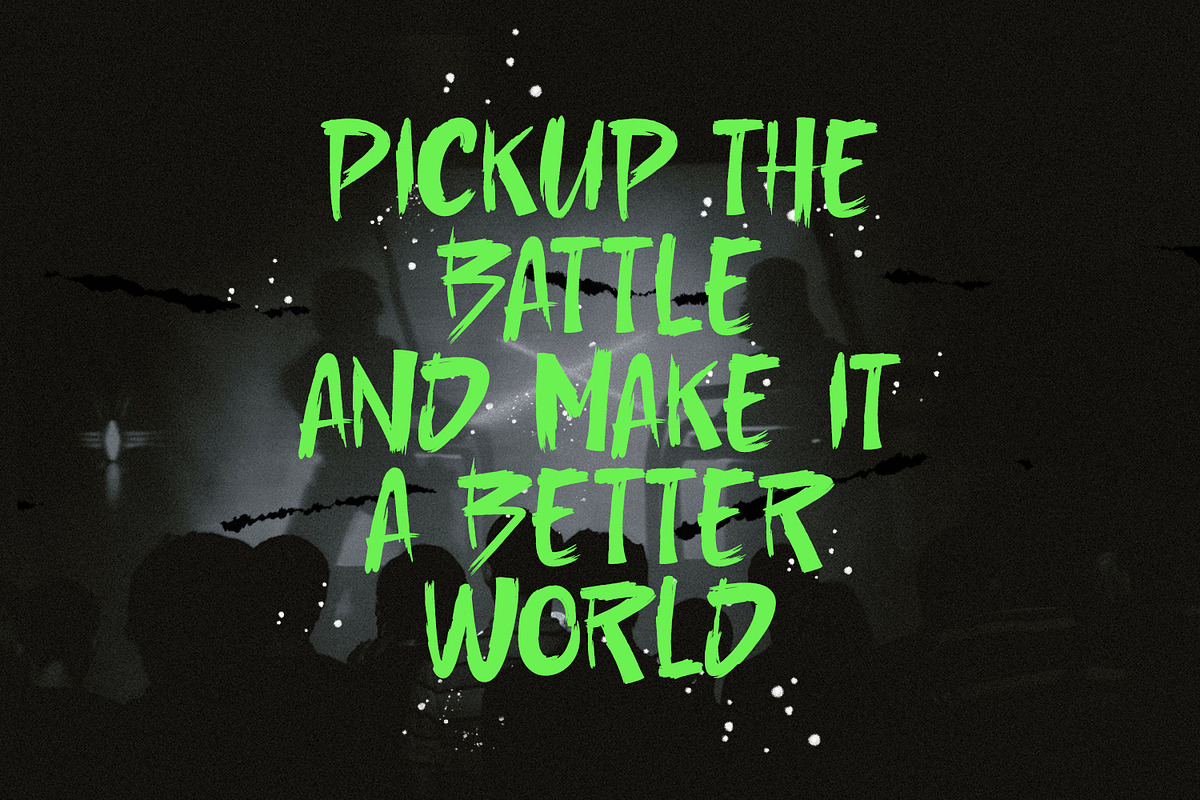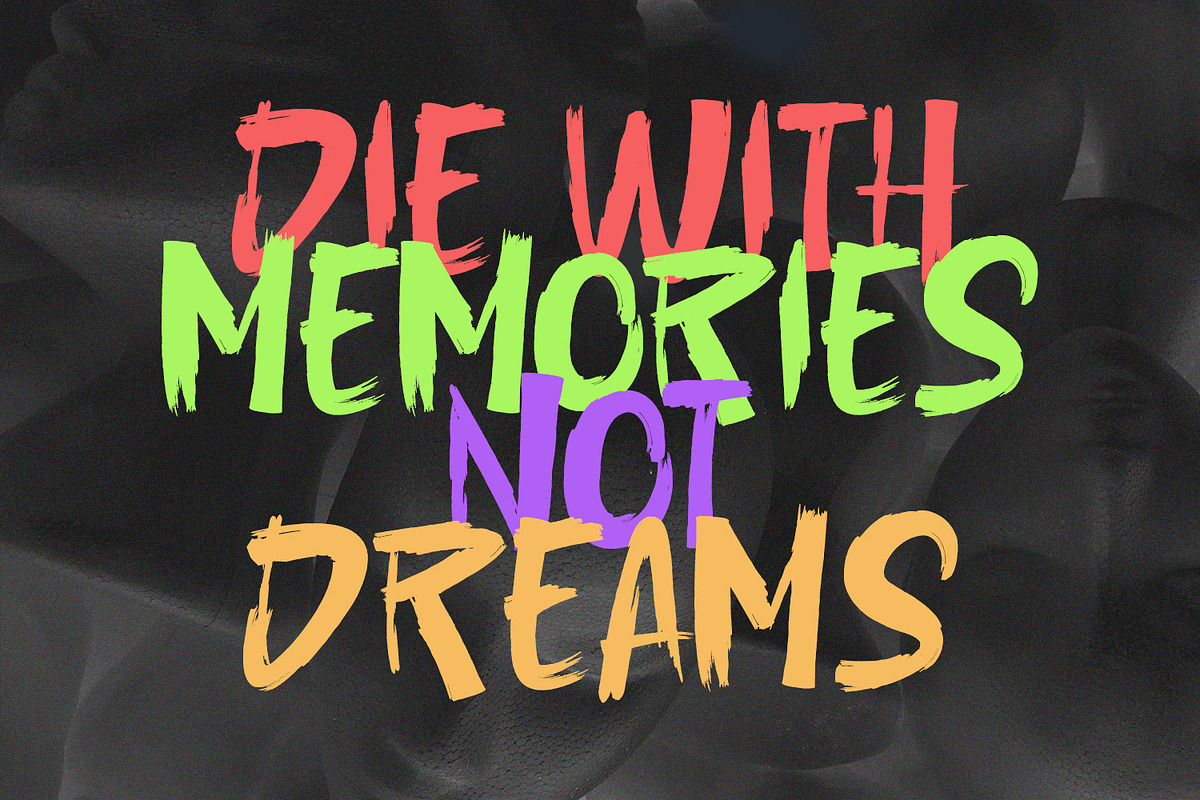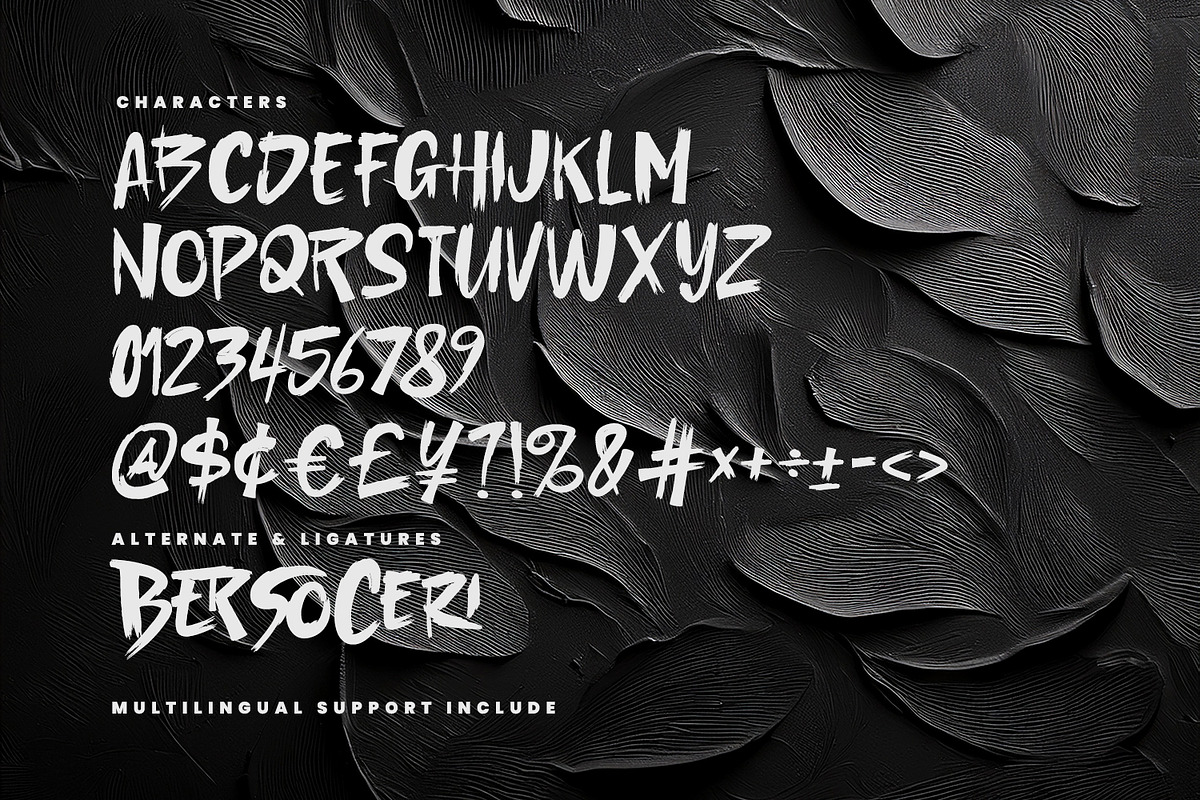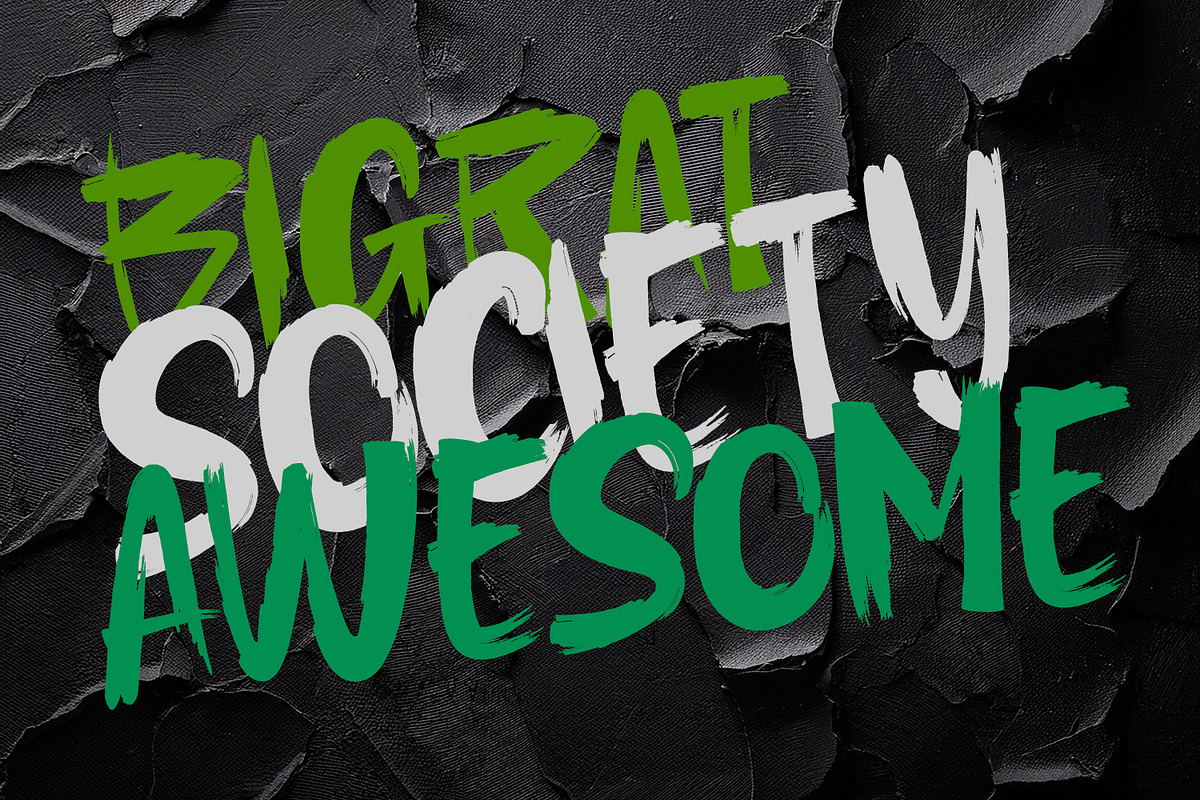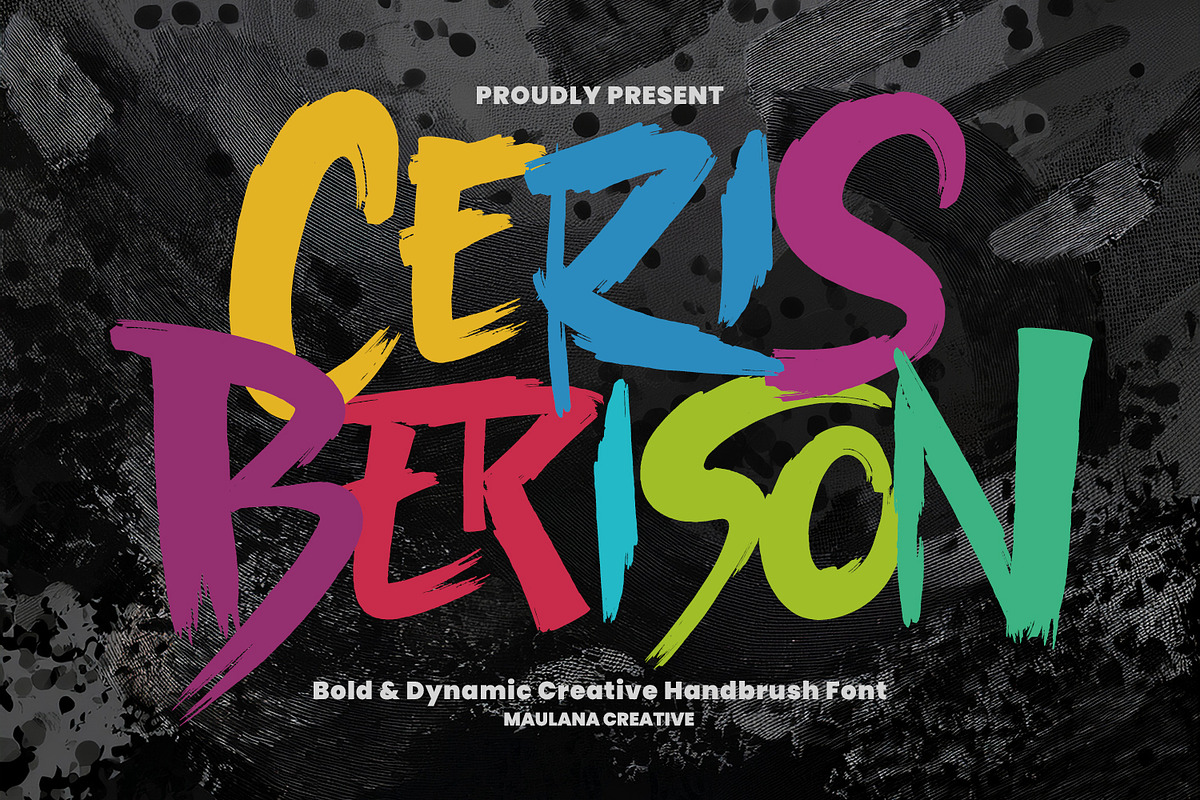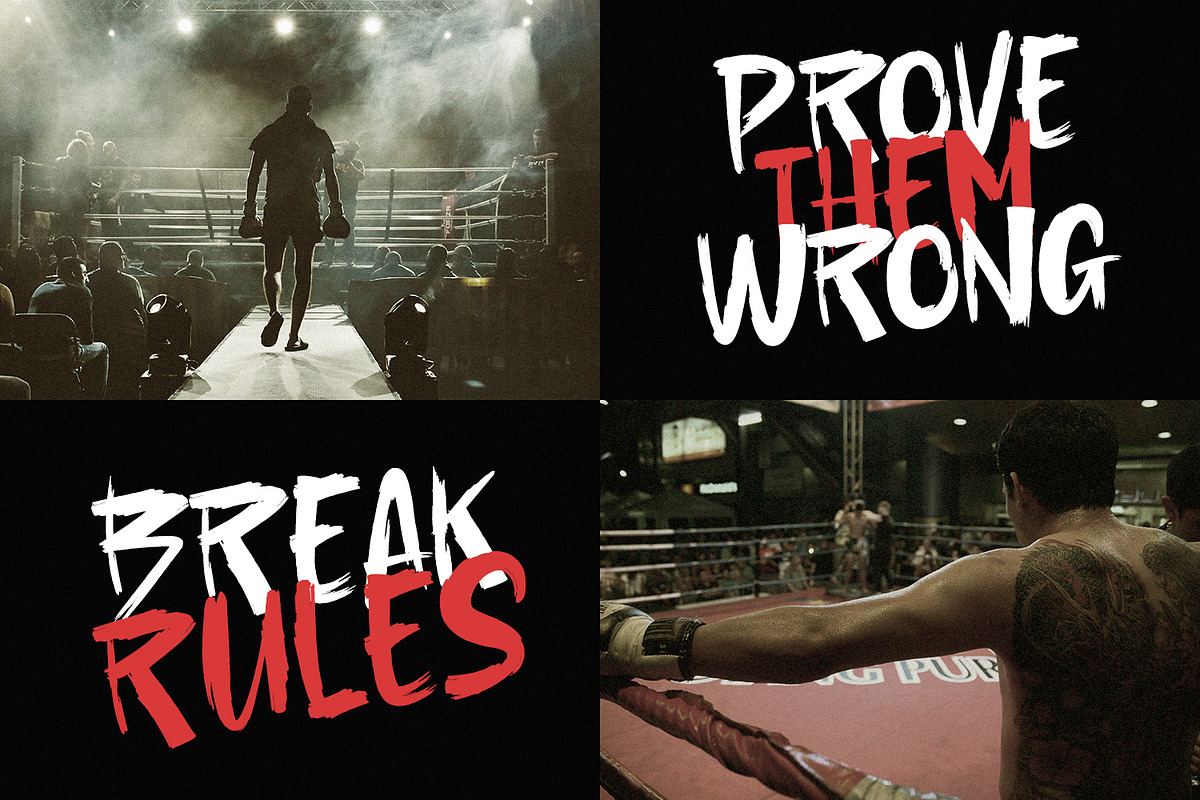
Ceris Berison Bold Dynamic Creative
Ceris Berison is a fiercely bold and dynamic handbrush font designed to make an instant, unforgettable impact. Crafted with a confident, raw brush stroke, this typeface embodies energy, movement, and an unapologetic attitude. It’s perfect for designers who need a font that shouts, not whispers.
Ideal For:
- Action & Sports branding, and merchandise (e.g., boxing, fitness, extreme sports).
- Streetwear & Apparel design that demands attention.
- Bold Quotes and social media graphics with a grunge or rebellious vibe.
- Movie Titles, Album Covers, and high-impact headlines.
- Full Uppercase characters
- Numerals, Punctuation, and Multilingual Support included.
- Alternates and Ligatures for truly custom and authentic hand-painted looks.